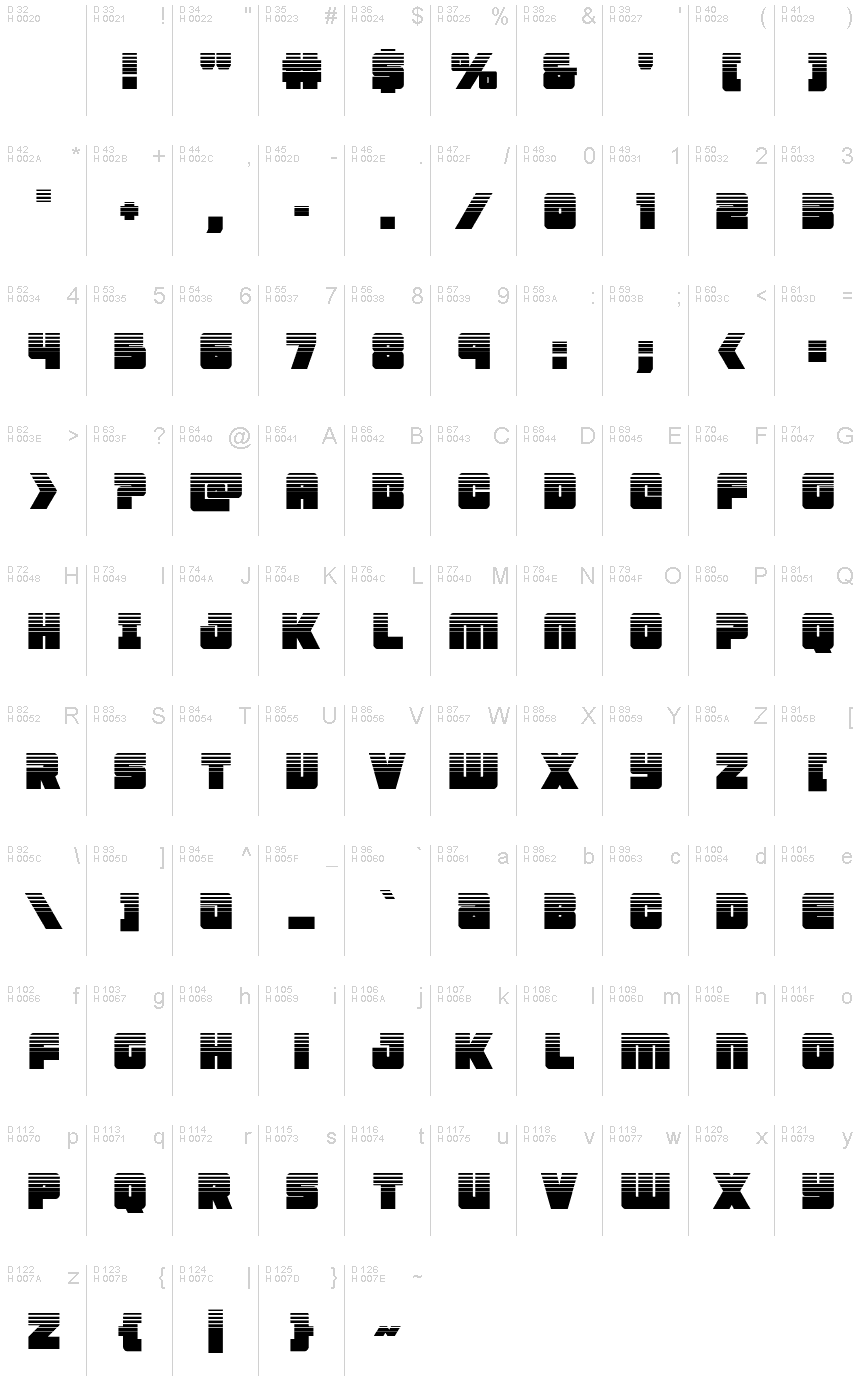
4ce Halftone
4ce Halftone is an ultra-bold, expanded display font that boasts a distinctive techno style. Designed by the renowned Iconian Fonts, this unique typeface is optimized for use in projects requiring a bold, eye-catching aesthetic. Its unconventional design and halftone texture make it suitable for a wide range of creative applications - from edgy album covers to futuristic tech campaigns. Whether you're designing a poster or creating graphics for your next app launch, 4ce Halftone's powerful presence is sure to leave an impression. So why settle for ordinary fonts when you can stand out with 4ce?